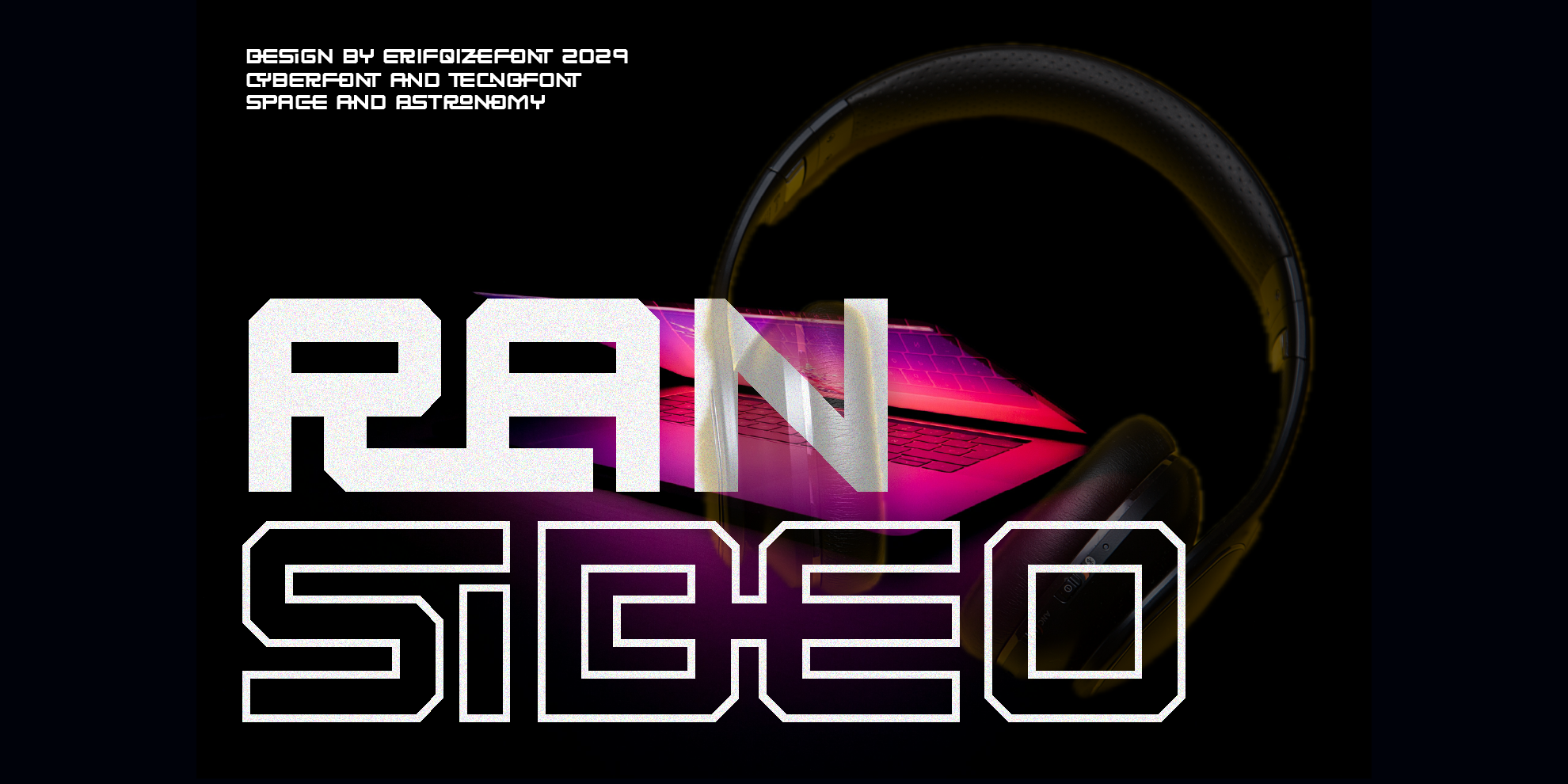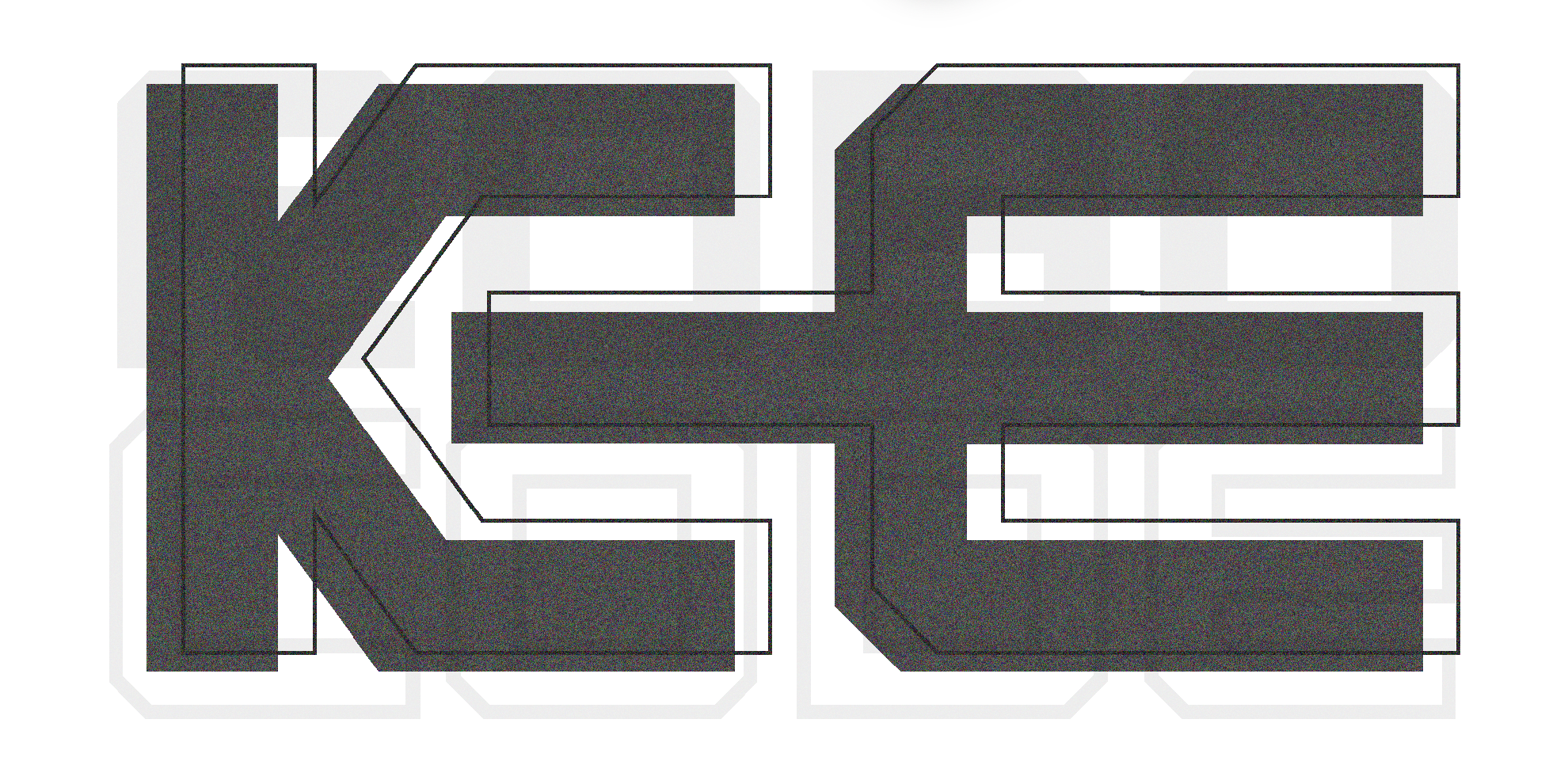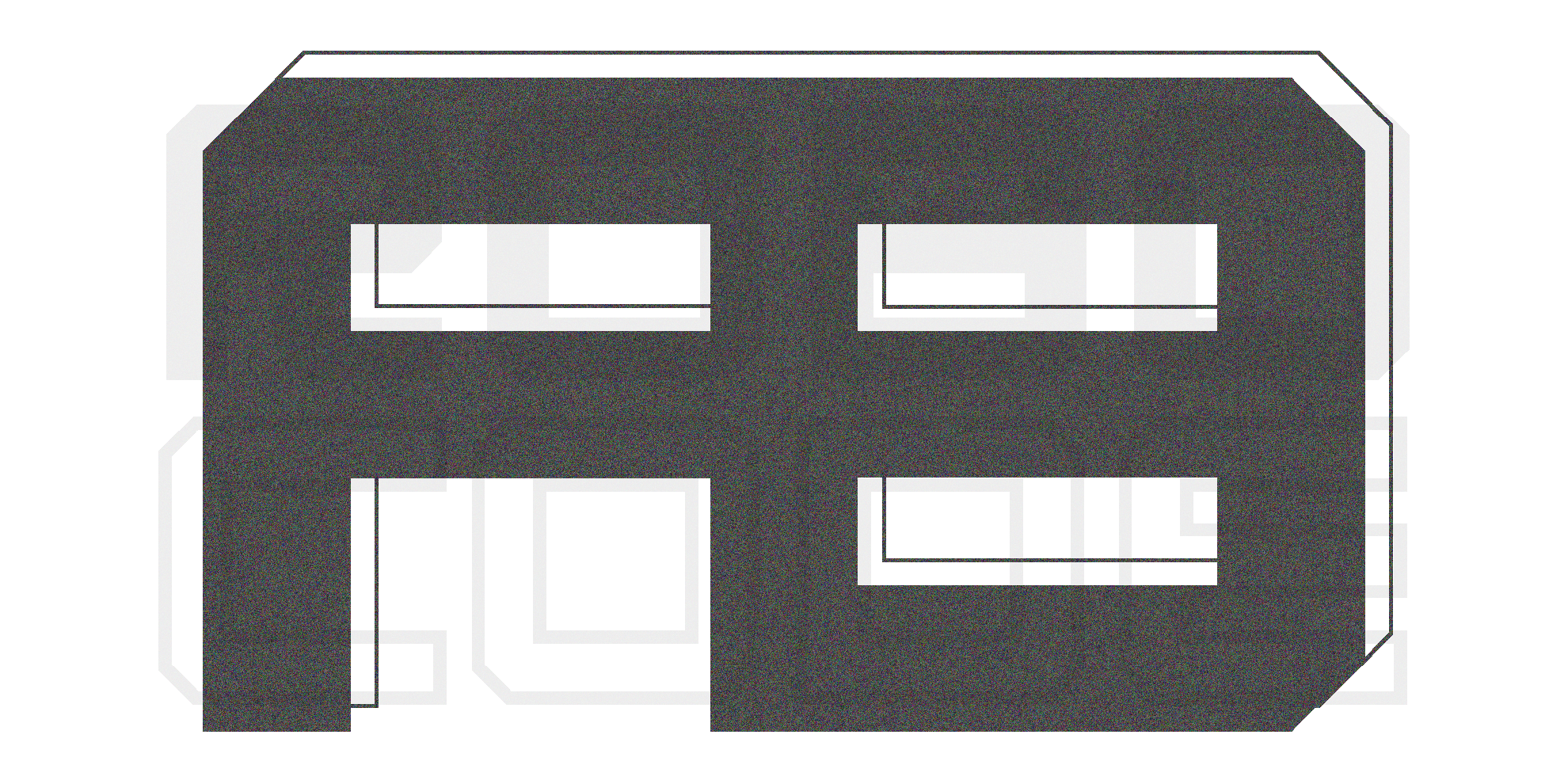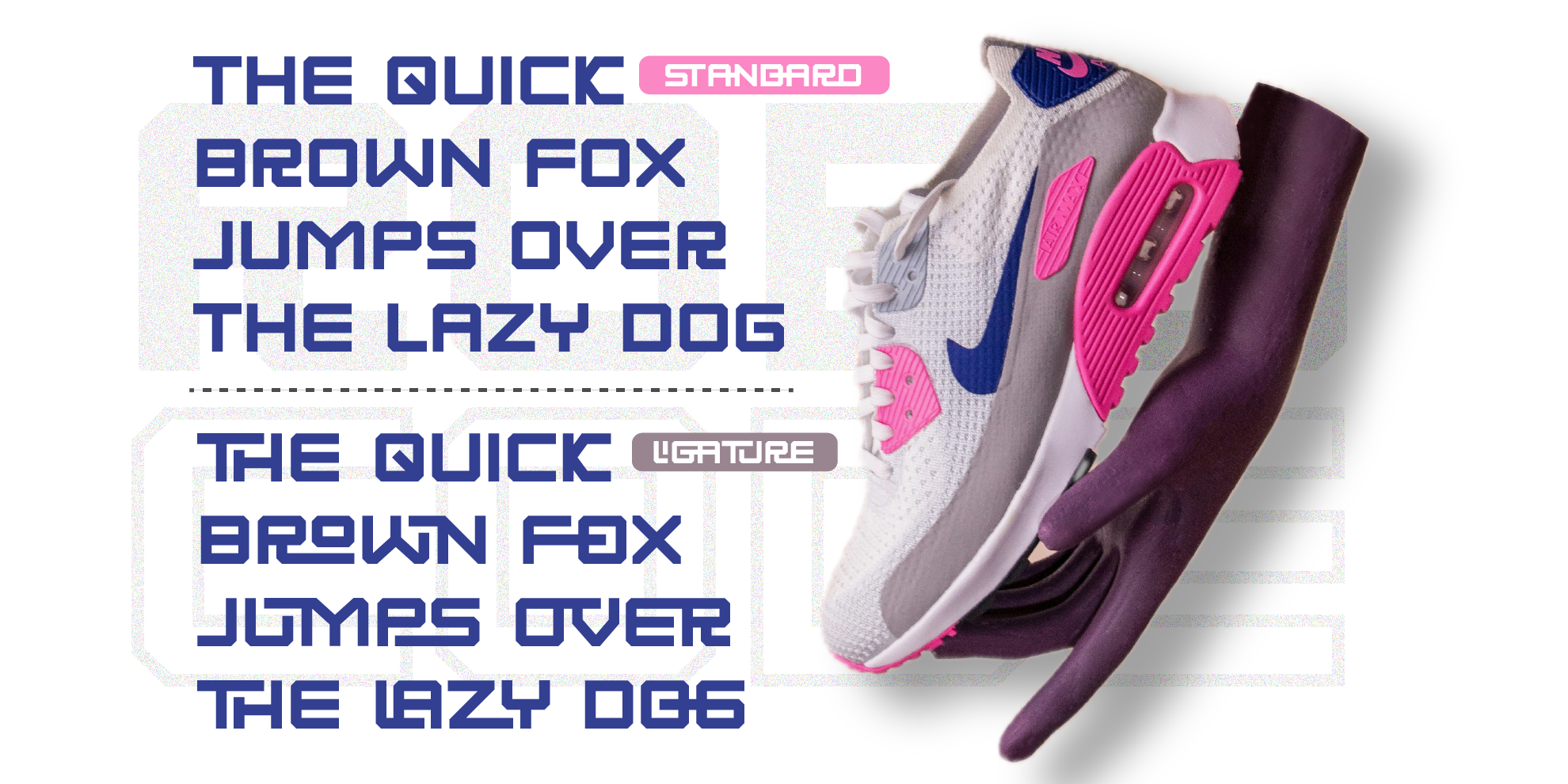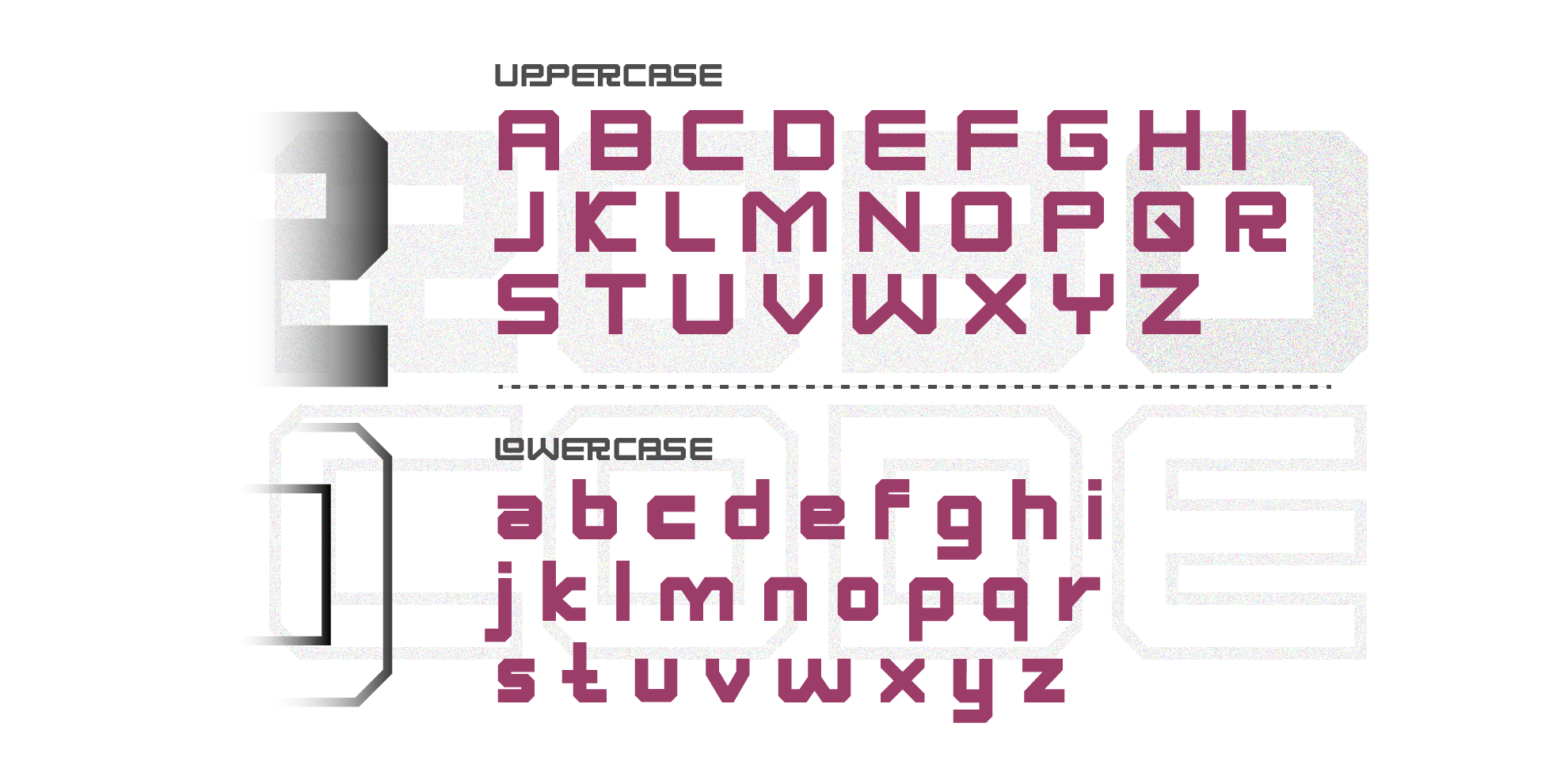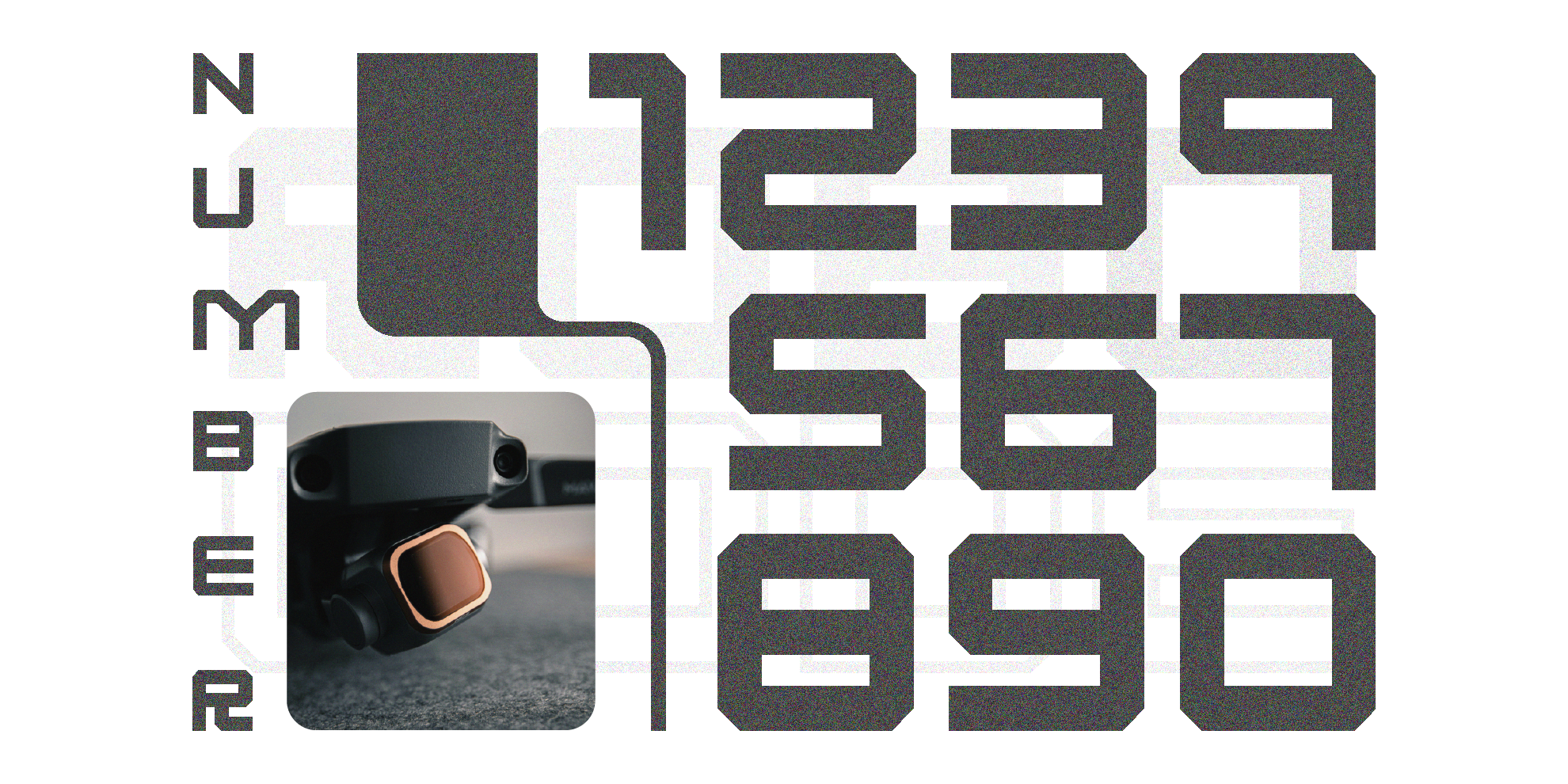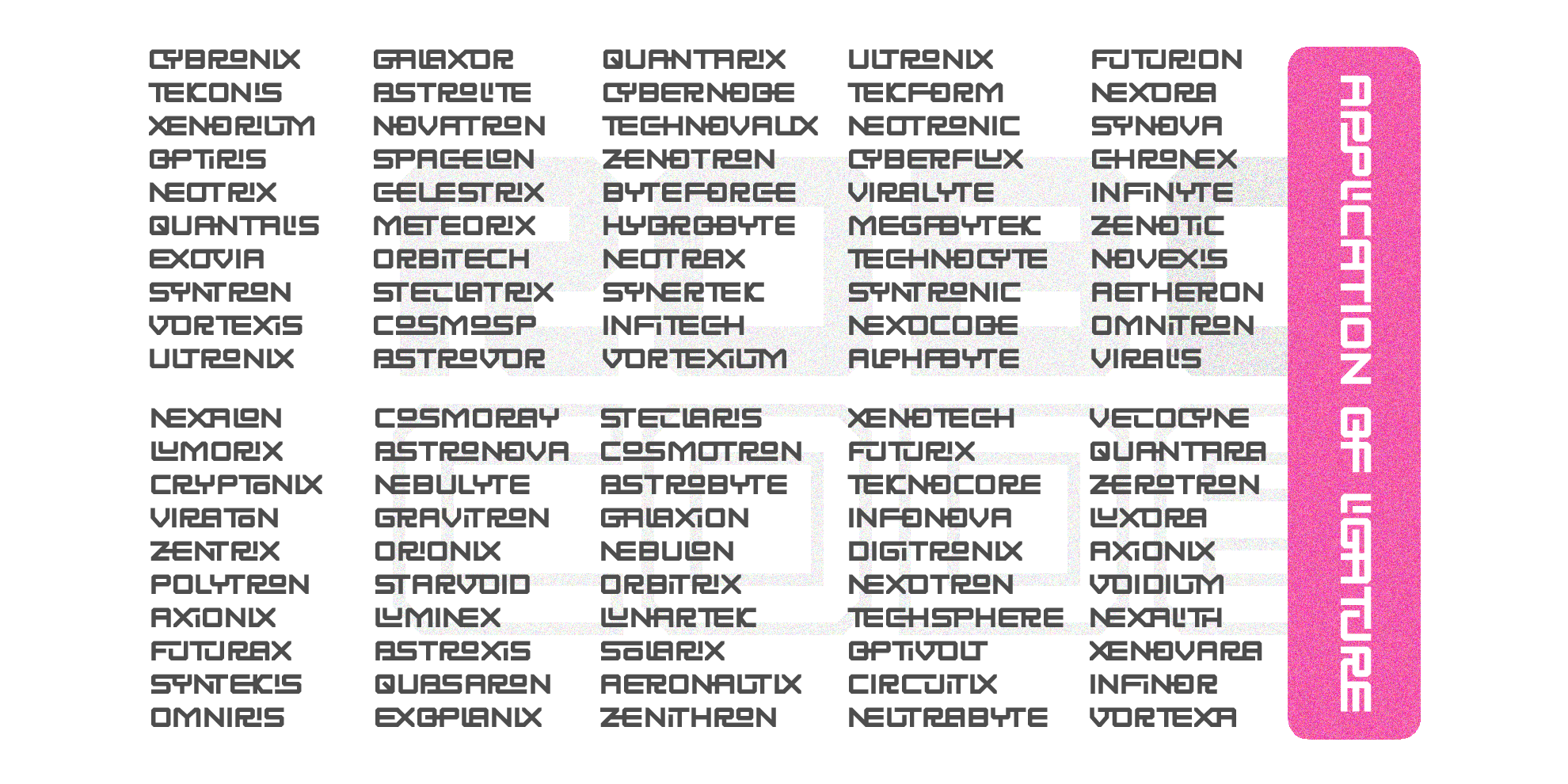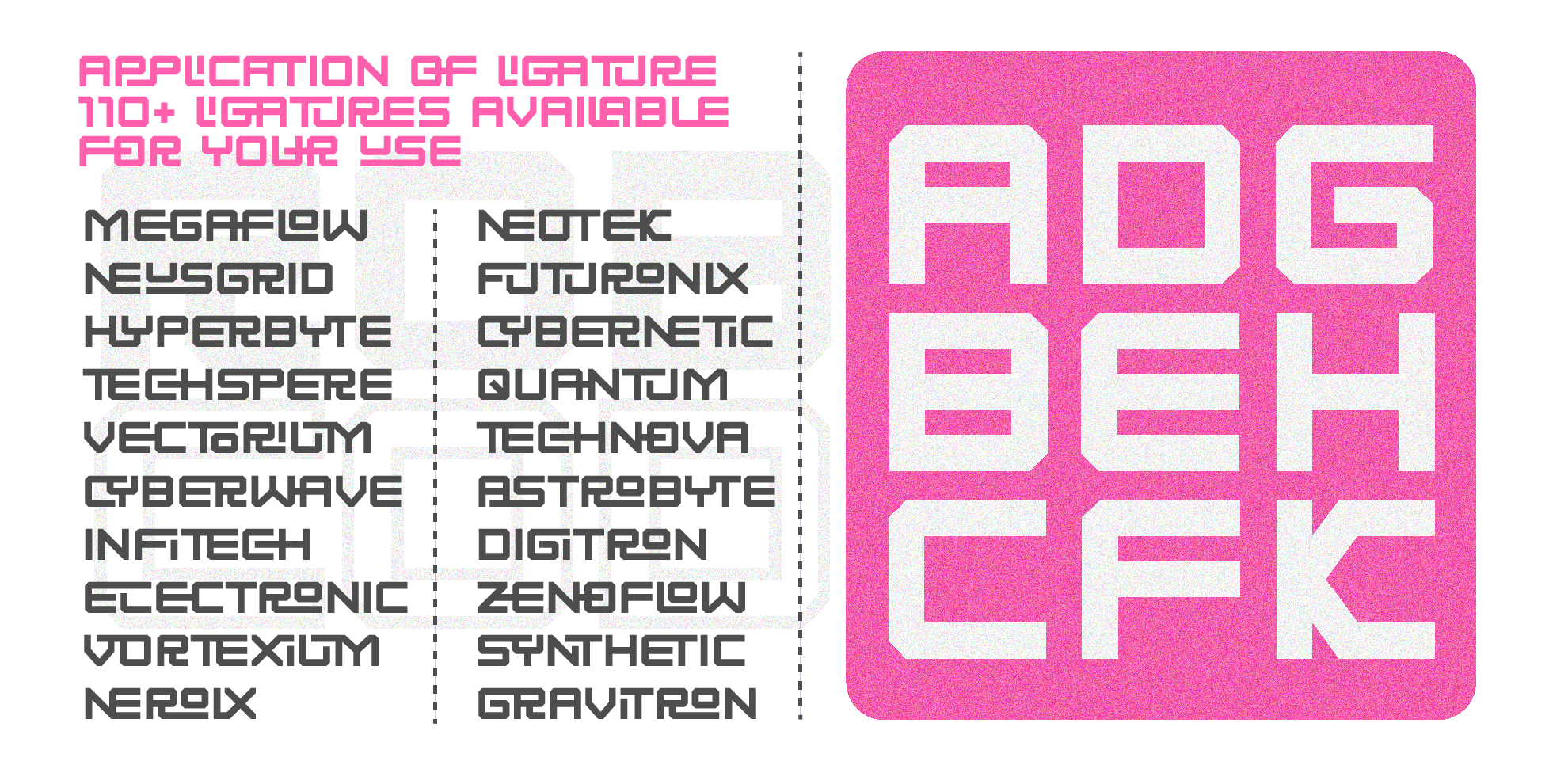
Syntetic Asrocuus
SYNTETIC ASROCUUS by Erifqizefont is a cutting-edge ligature font crafted with a bold, symmetrical, and futuristic design — perfect for projects with a strong techno aesthetic. Its sleek, geometric shapes create a modern and innovative feel, capturing the true spirit of technology and the future.
Featuring over 110 meticulously designed ligatures, SYNTETIC ASROCUUS ensures a smooth, dynamic, and eye-catching reading experience. Complete with multilingual and Cyrillic support, this font is ready to connect with a global audience. Whether for tech-driven branding, UI/UX design, digital interfaces, or futuristic visual projects, SYNTETIC ASROCUUS brings a sharp and sophisticated edge that stands out in any creative application.
Unlock the future of typography with SYNTETIC ASROCUUS — where bold innovation meets timeless style.
Syntetic Asrocuus – 110 Meticulously Ligatures Font
Syntetic Asrocuus by Erifqizefont is a cutting-edge ligature font designed with a bold, symmetrical, and futuristic aesthetic